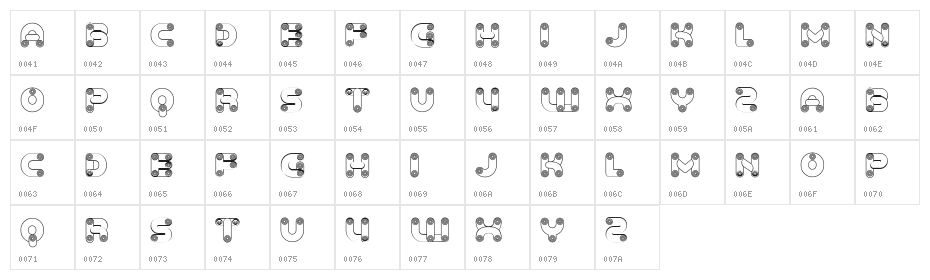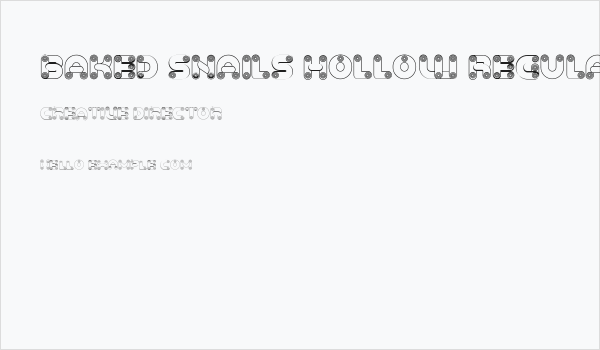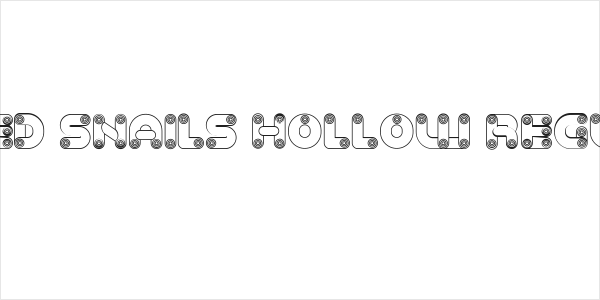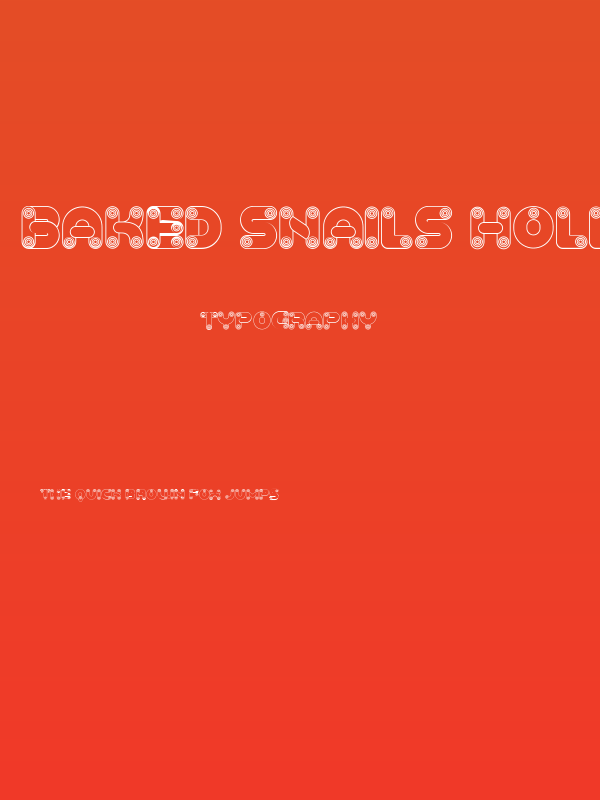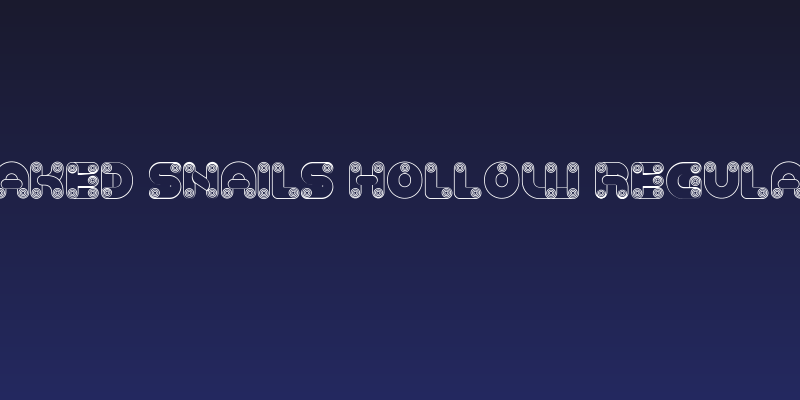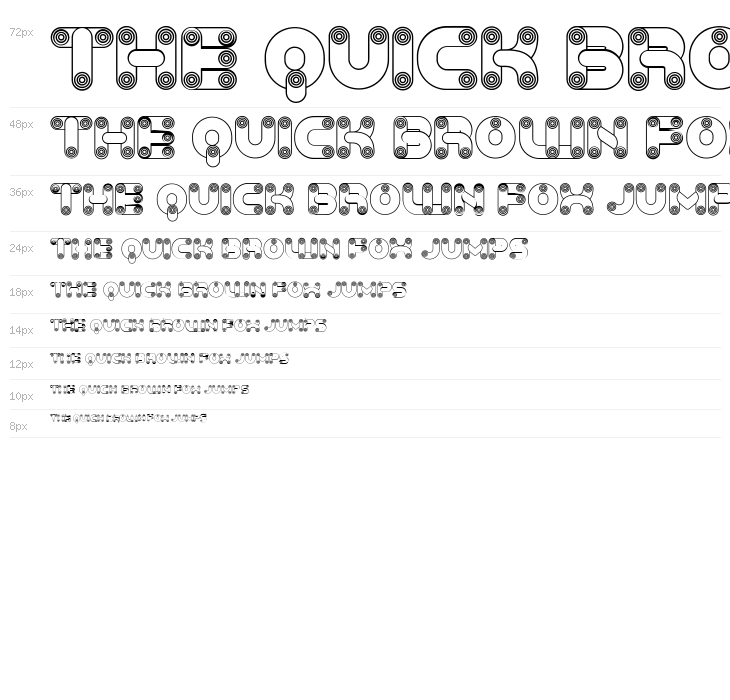
Baked Snails Hollow Regular Font
Baked Snails Hollow Regular Description
This font features a unique and playful design with hollow, spiral-like elements that create a whimsical and eye-catching appearance. The letters are bold and rounded, with intricate details that resemble snail shells, giving it a distinctive and artistic look. The font maintains a consistent thickness throughout, with each character displaying a harmonious balance between its decorative elements and readability. This design is perfect for projects that require a fun and engaging typeface, offering a creative twist on traditional letterforms.
| Proposed Projects | Ideal for children's books, playful branding, creative posters, and whimsical invitations. |